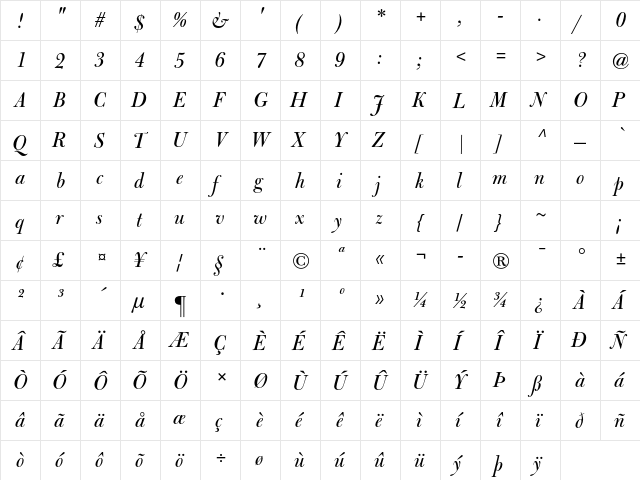
Bulmer MT Std Italic Display
| Designer | Morris Fuller Benton, William Martin |
Design Context for Bulmer MT Std Typeface
Bulmer MT Std is built around its visual character rather than neutral utility — its distinctive forms are designed to make an impression at display sizes. The dynamic lean of this cut emphasises speed and emphasis in any layout.
Font Pairing: Pair with a clean neutral sans-serif for body copy to let Bulmer MT Std's character lead without overwhelming the composition.
Pro Tip: Treat Bulmer MT Std as the centrepiece of your typographic hierarchy. One strong heading set in a decorative face can carry an entire layout.